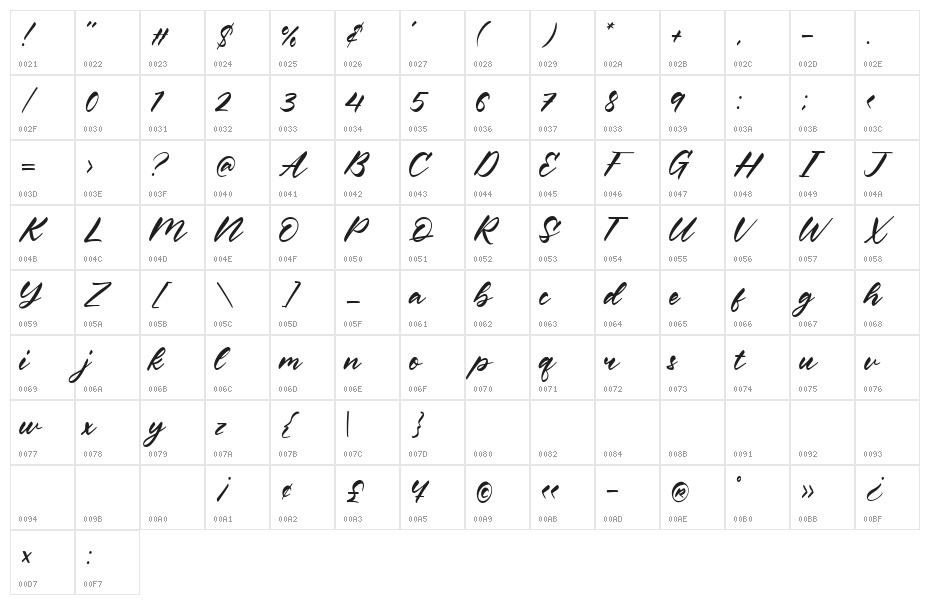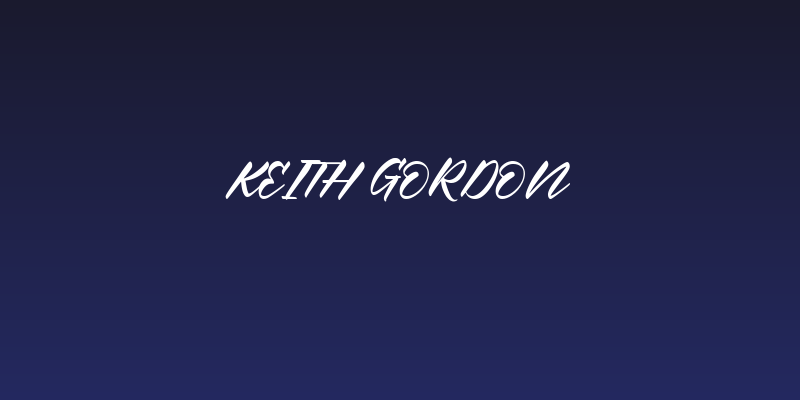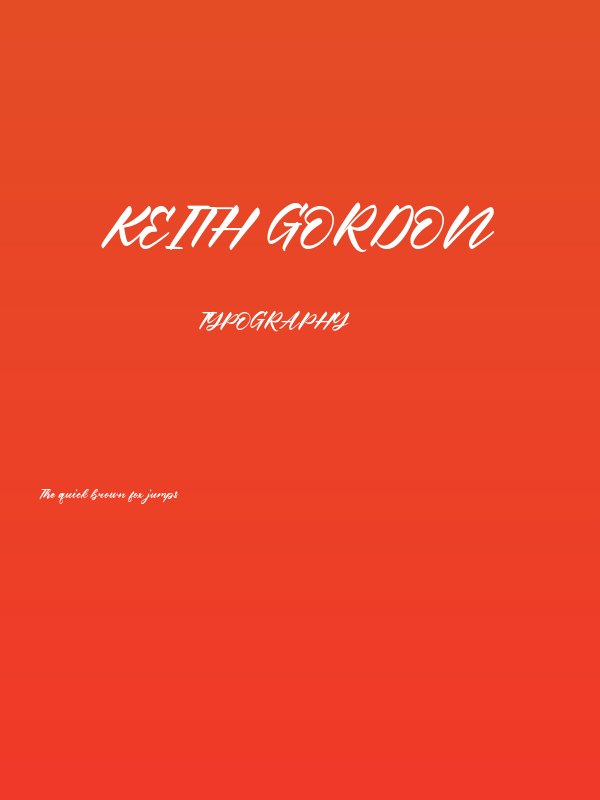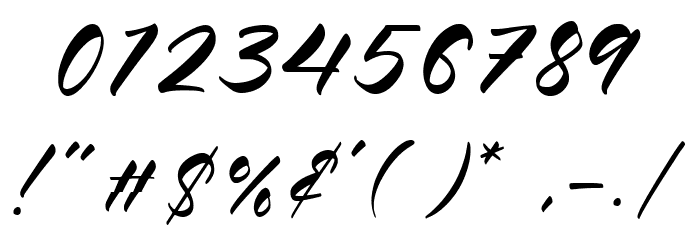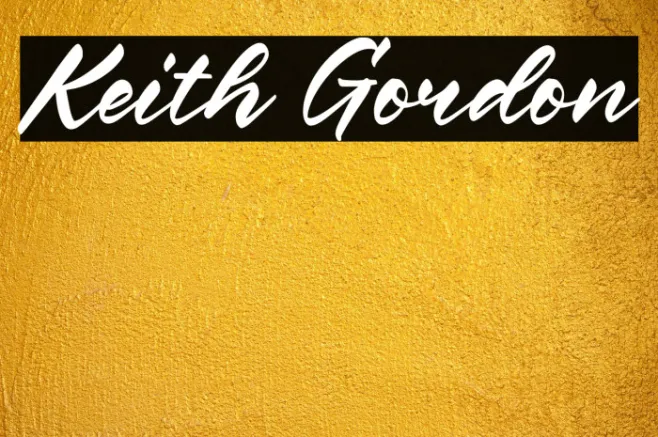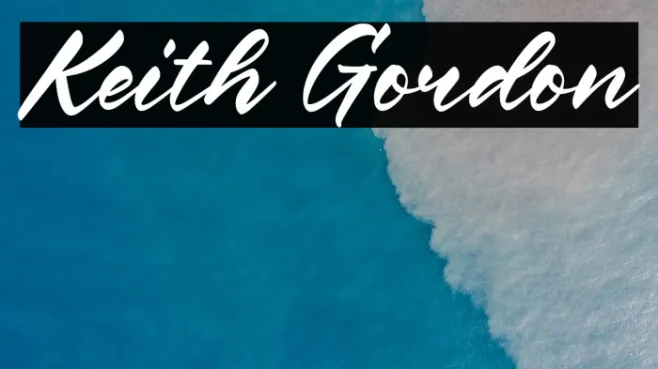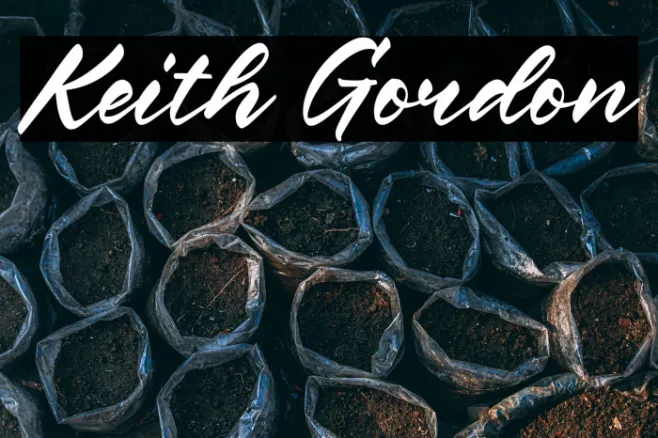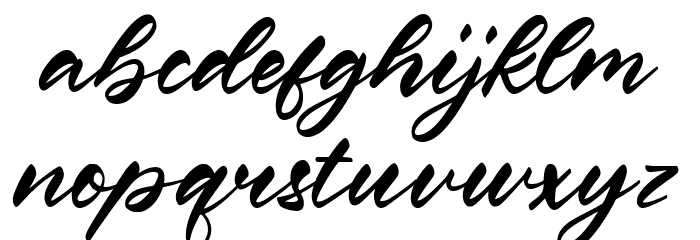
Keith Gordon Font
Keith Gordon Description
This font features a flowing, cursive style with elegant, sweeping strokes that give it a dynamic and sophisticated appearance. The characters are interconnected, creating a seamless and fluid look. The uppercase letters are bold and prominent, while the lowercase letters maintain a consistent flow, enhancing readability. The numerals and special characters follow the same cursive style, ensuring uniformity across all glyphs. The overall design is reminiscent of traditional calligraphy, making it suitable for projects that require a touch of elegance and formality.
| Overall Style | Classic |
| Use Case | Logos, Invitations, Decorative text |
| Proposed Projects | Ideal for wedding invitations, elegant branding, greeting cards, and formal event programs. |